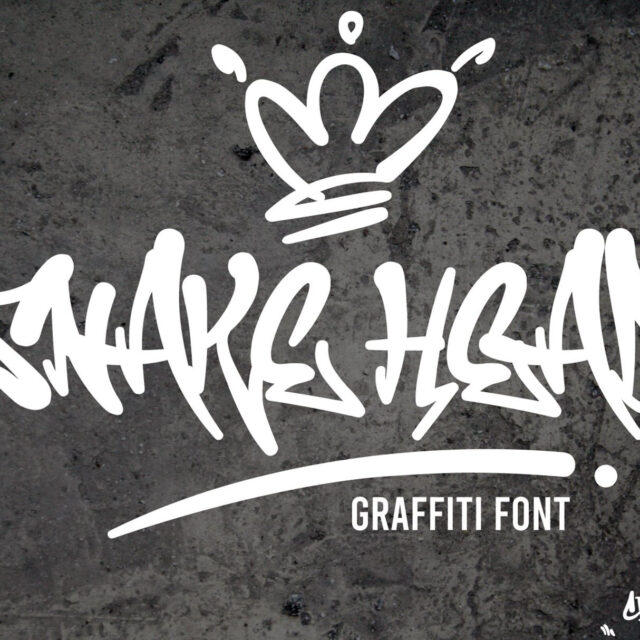
About Snakehead
“Snakehead” is a monoline graffiti font that features an abundance of swashes, including swashes below characters and some above characters, resembling various crown-like elements. Fonts like these are often used to create expressive and artistic designs with the distinctive flair of graffiti art. With a variety of swash options, you have the flexibility to customize the look of your text and give your design a unique and eye-catching touch. Fonts like “Snakehead” are commonly employed in street art projects, posters, or other designs that call for creative and bold typography.
Features:
- Standards Characters
- Swash
- Punctuation